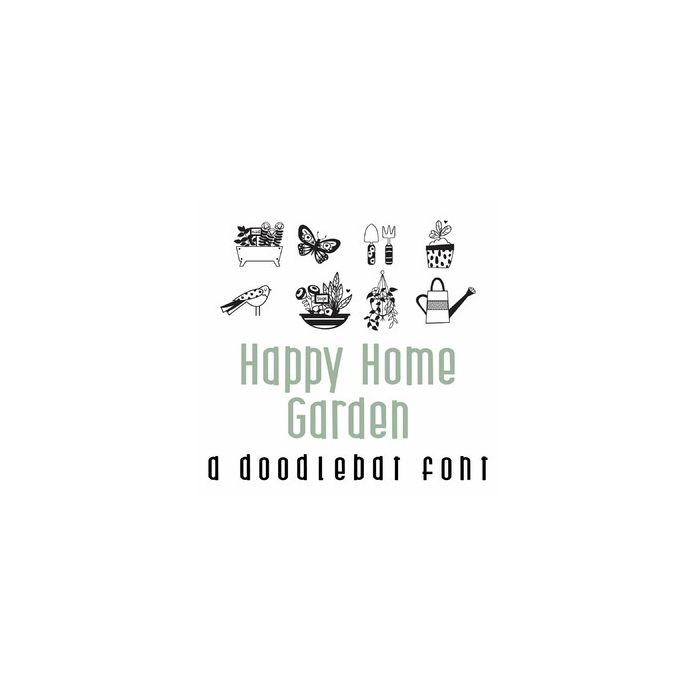
This fun doodlebat font features fun garden items, flowers, and phrases. Perfect for Mother's Day, gifts, cards, decor, planner stickers, scrapbook pages and more!